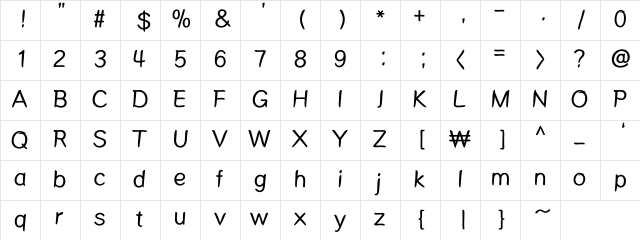
MDAlong Regular
| Designer | MorrisDesign |
Design Context for MDAlong Typeface
MDAlong takes a measured approach to typography — its balanced proportions and neutral character make it a reliable workhorse for both digital and print work.